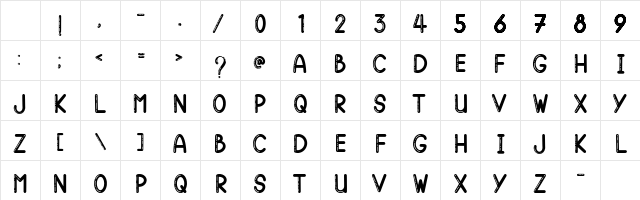
Complete Gomuno Bubble Regular glyph index. Displaying only characters natively supported by Gomuno Bubble Regular font.
Gomuno Bubble has an approachable, lighthearted character - its loose, expressive forms are well-suited to children's content, casual branding, and fun-first design.
Font Pairing: Pairs well with a rounded or humanist sans for body copy, maintaining the friendly tone without relying on Gomuno Bubble to carry extended reading.
Pro Tip: Use Gomuno Bubble at larger display sizes where its expressive character can land. Pair with a clean, simple sans for body copy to maintain readability.